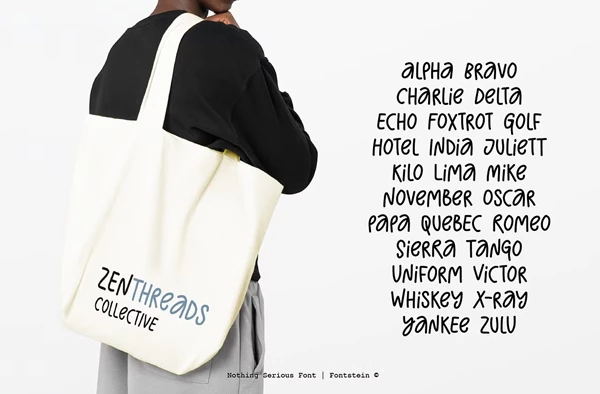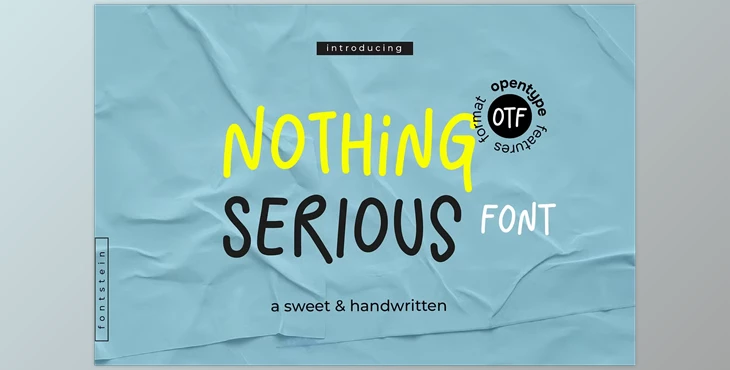
Nothing Serious - Handwritten Font: Introducing Nothing Serious, the carefree handwritten font that celebrates the joy of creativity and self-expression. With its playful and whimsical style, Nothing Serious encourages you to embrace the unconventional and let your imagination run wild.
Designed with uppercase characters as the focal point, Nothing Serious adds a fresh twist to your quotes and designs. But don't be afraid to flip the script and dabble with lowercase letters, unlocking even more possibilities for creativity and experimentation.
Whether you're crafting contemporary branding, quirky quotes, social media stunners, invitations, greeting cards, bold headlines, or any playful design imaginable, Nothing Serious is your go-to font for injecting a sense of fun and personality into your projects.